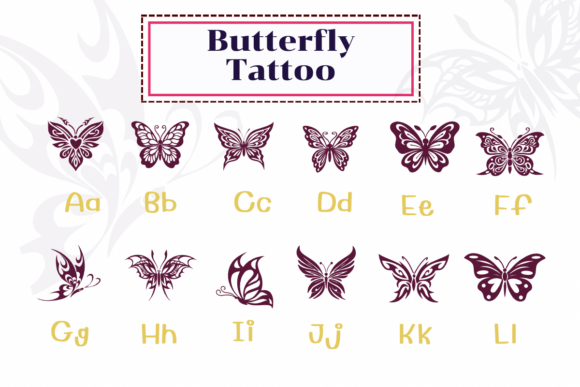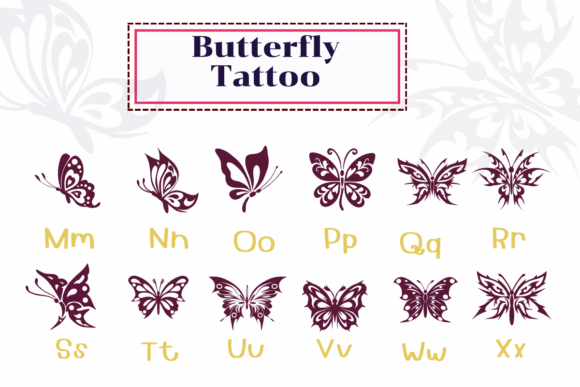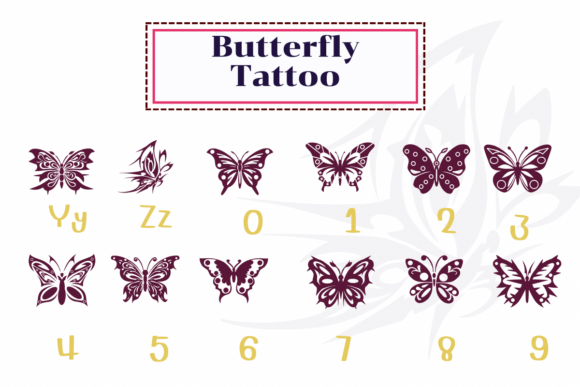
Introduction to Butterfly Tattoo Font
A Butterfly Tattoo dingbat font features decorative butterfly designs that can be used to create unique, nature-inspired tattoos or artwork.
The butterflies in the font are simple, clean illustrations that look beautiful when arranged in different patterns or sizes Perfect for those who love butterflies and want a fun, easy way to incorporate them into their designs.
Key Features of Butterfly Tattoo Font
Why Choose Butterfly Tattoo Font?